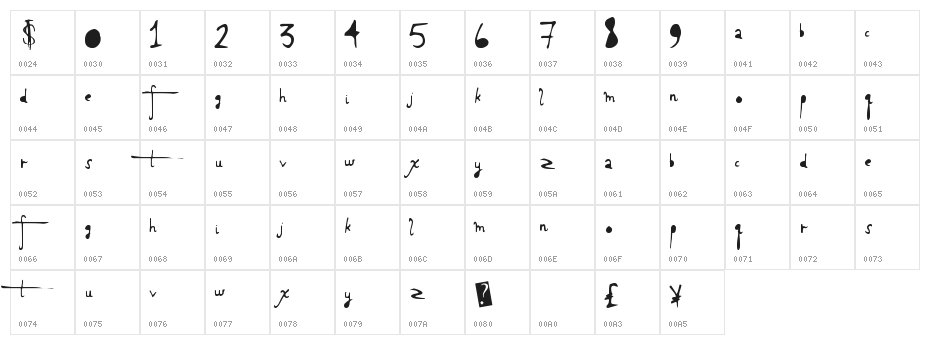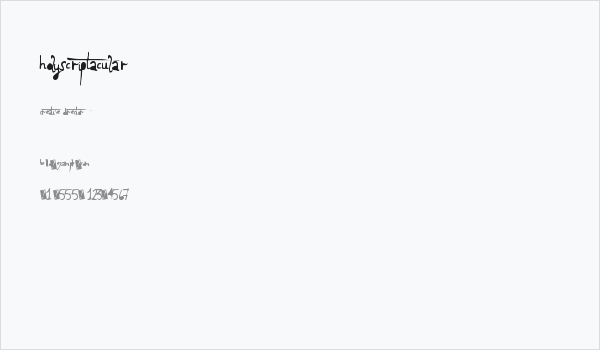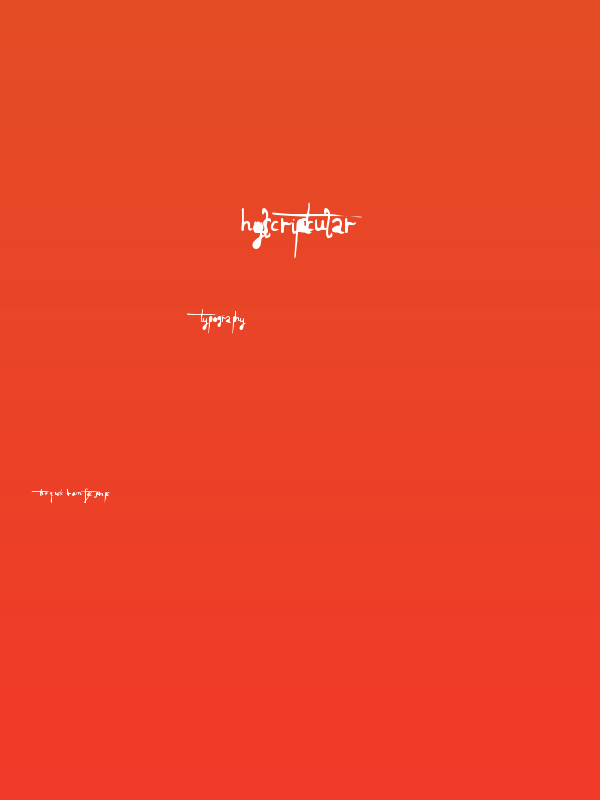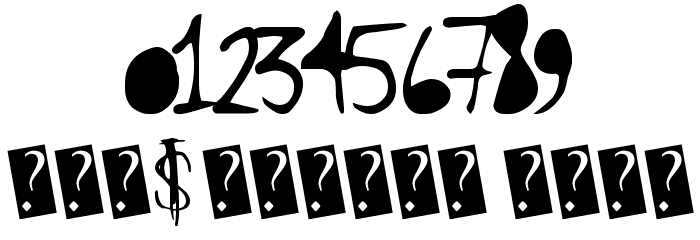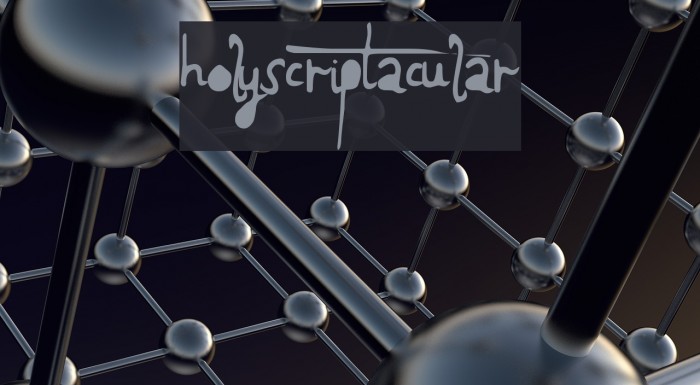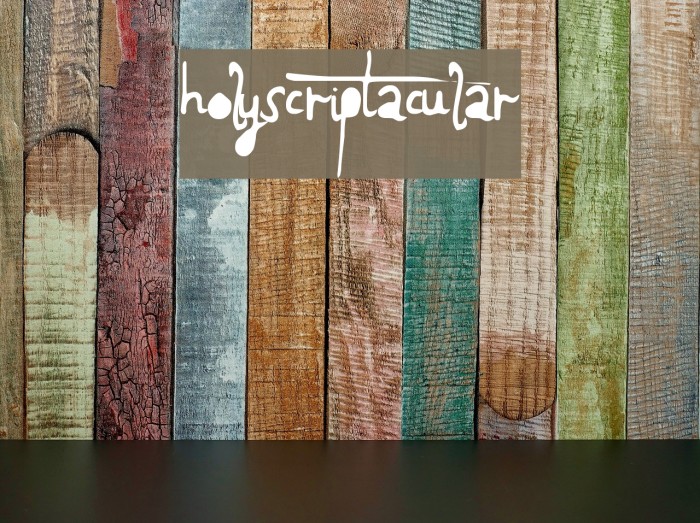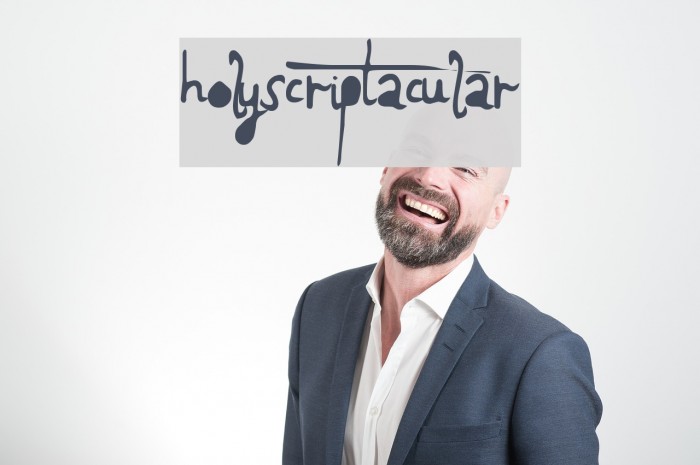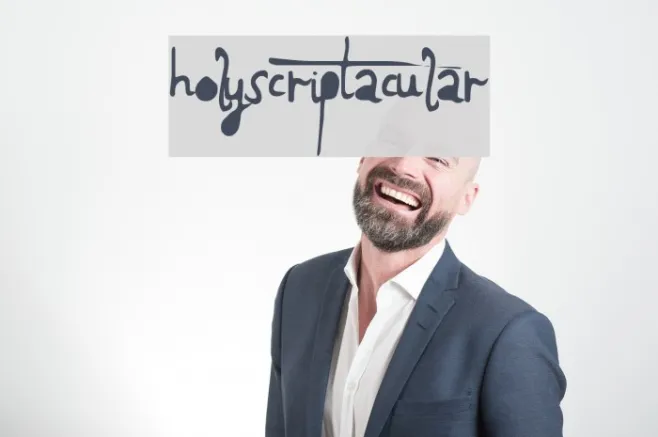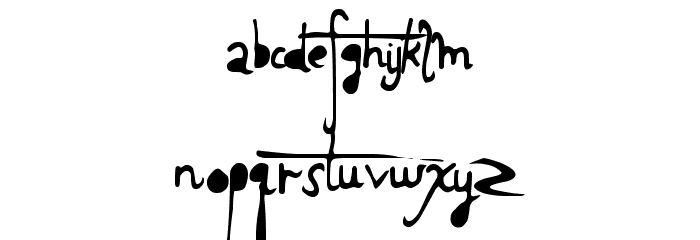
HolyScriptacular Font
HolyScriptacular Description
This font features a unique and artistic script style, characterized by its flowing, calligraphic strokes and distinctive flair. The uppercase and lowercase letters exhibit a harmonious blend of elegance and creativity, with elongated ascenders and descenders that add a dramatic touch. The numerals are bold and curvaceous, maintaining the overall artistic theme. Special characters are designed with a playful yet sophisticated approach, enhancing the font's versatility. The font's intricate design makes it suitable for projects that require a touch of elegance and individuality.